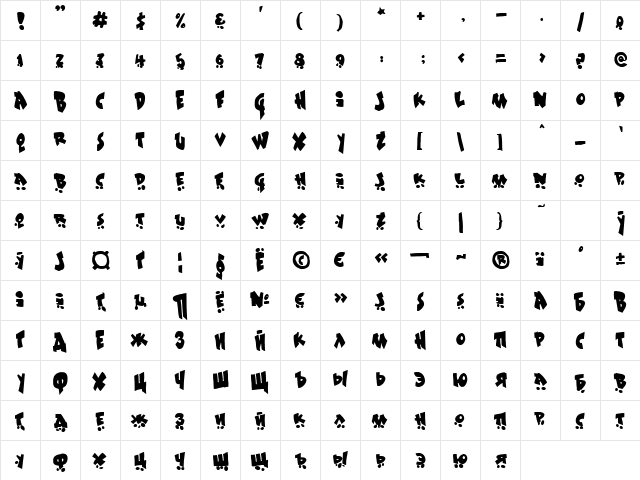
Sk8ordye Regular
Design Context for Sk8ordye Typeface
Sk8ordye is a composed and adaptable typeface that performs quietly and consistently across a wide range of design contexts.